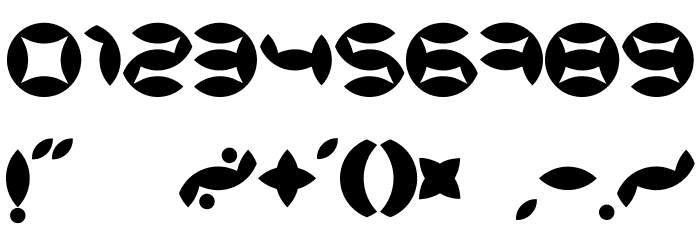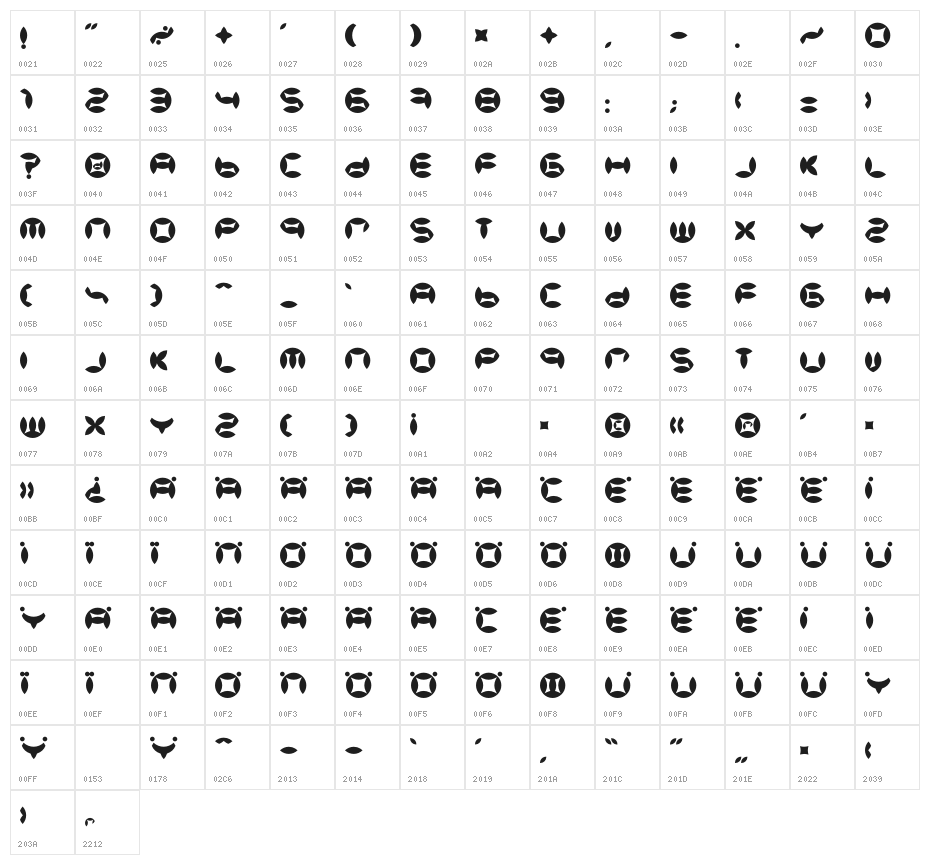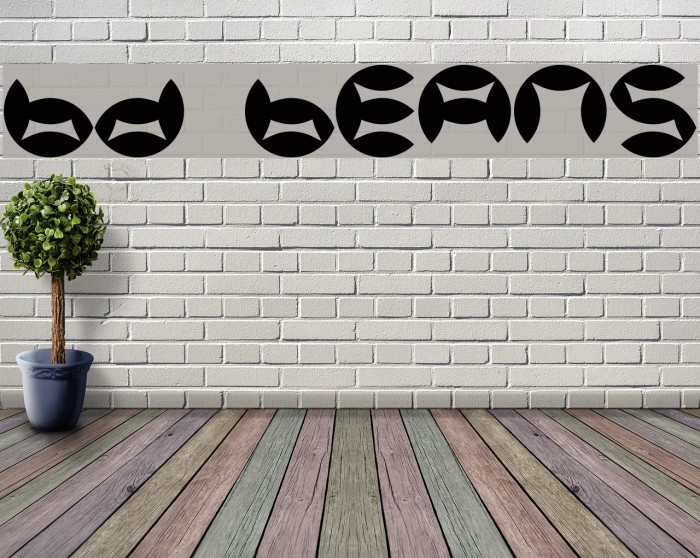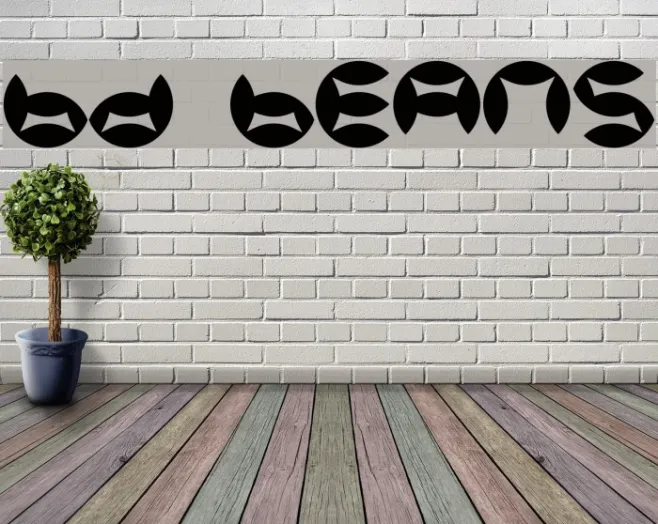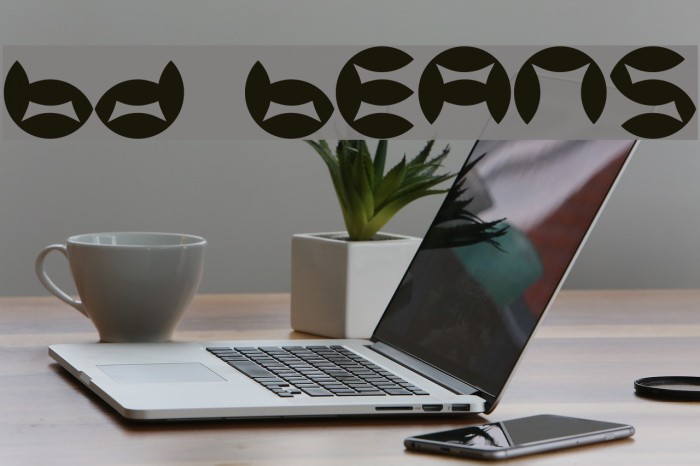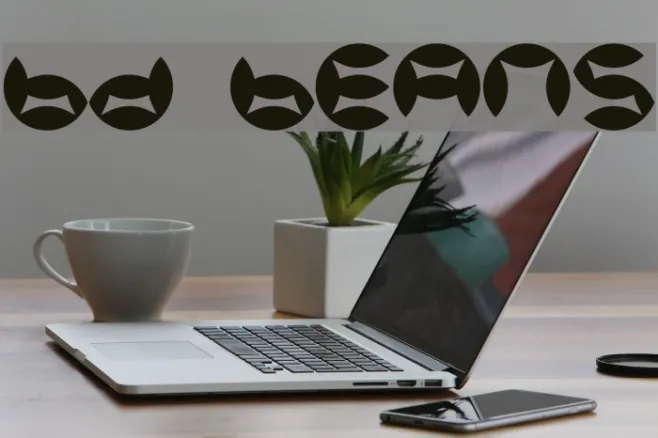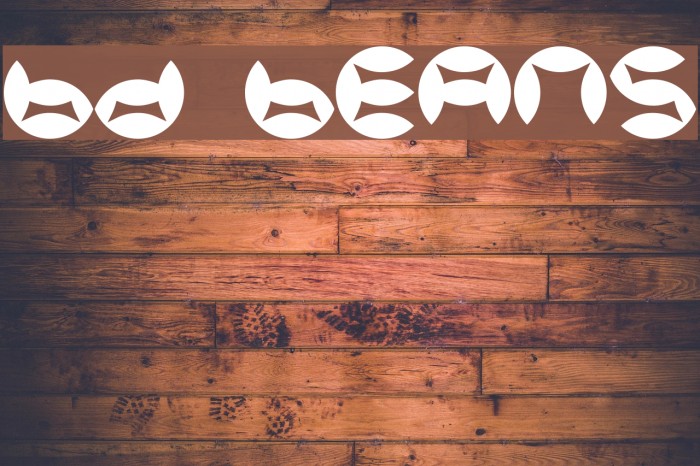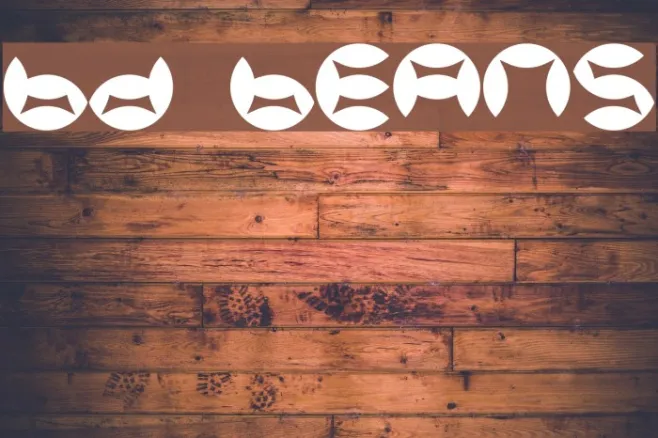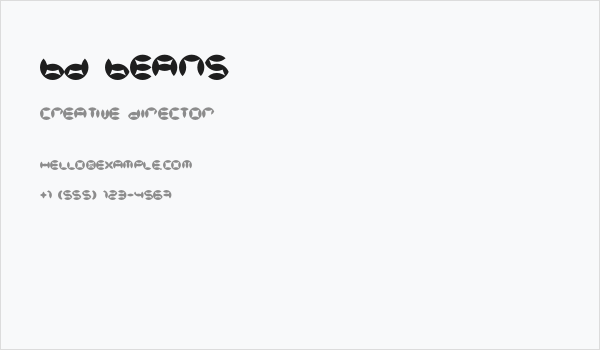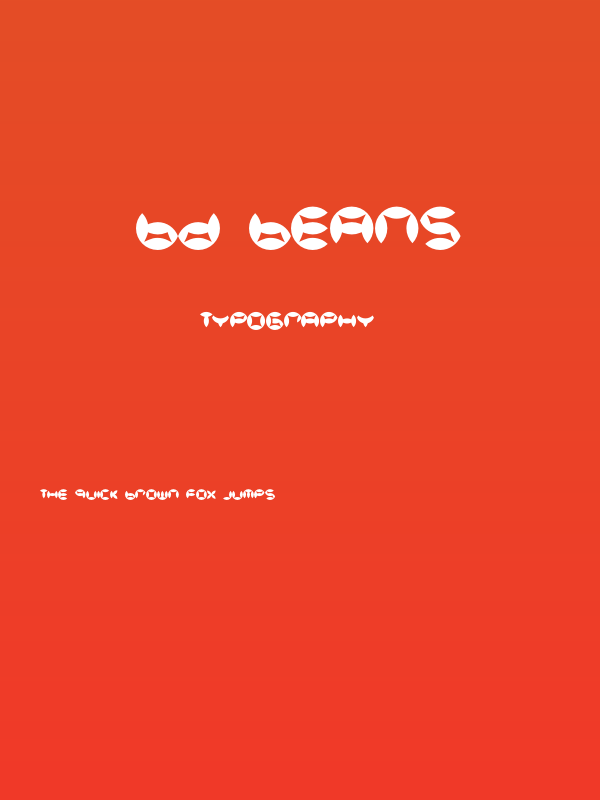
BD Beans Font
BD Beans Description
This font features a bold and playful design with a unique geometric style. Each character is crafted with rounded edges and circular cutouts, creating a visually striking appearance. The letters and numbers maintain a consistent weight, contributing to a cohesive look. The font's distinctive style makes it stand out, with its bold shapes and artistic flair. It is well-suited for creative projects that require a touch of modernity and uniqueness. The special characters complement the overall design, enhancing its versatility and appeal.